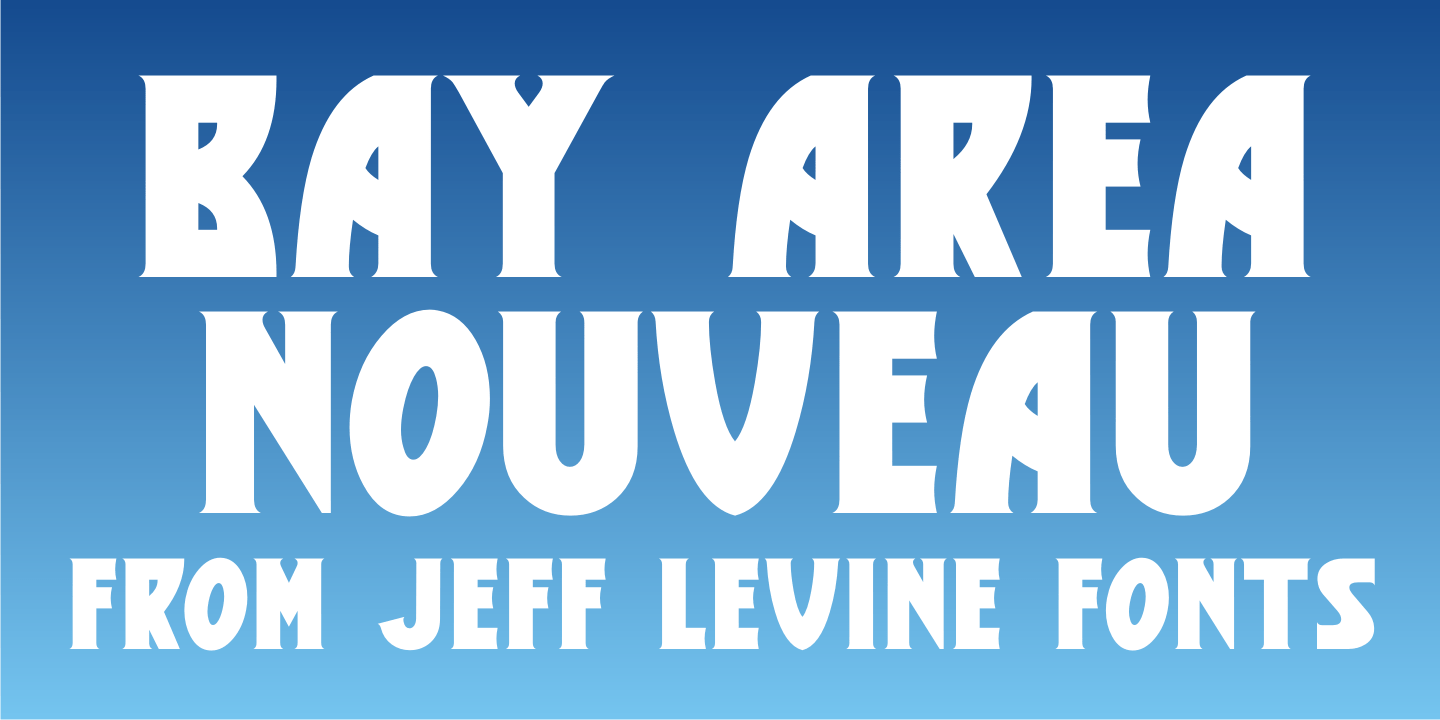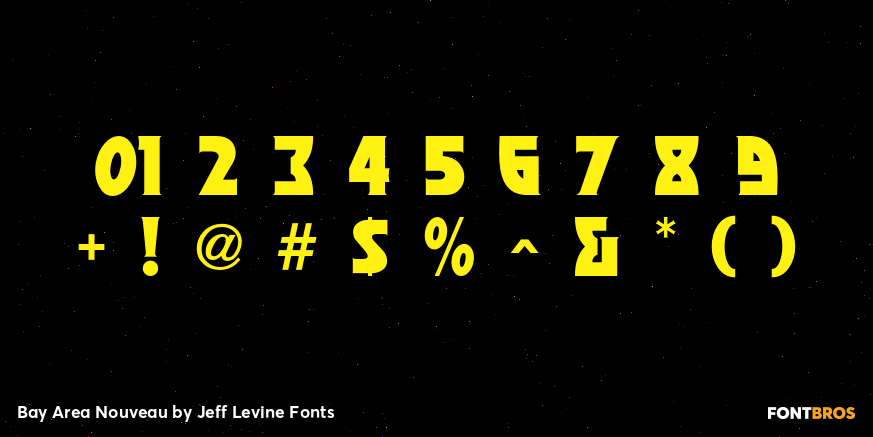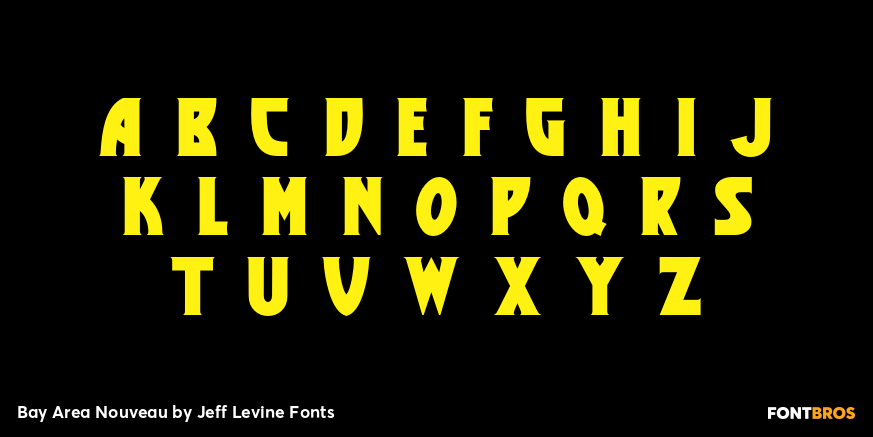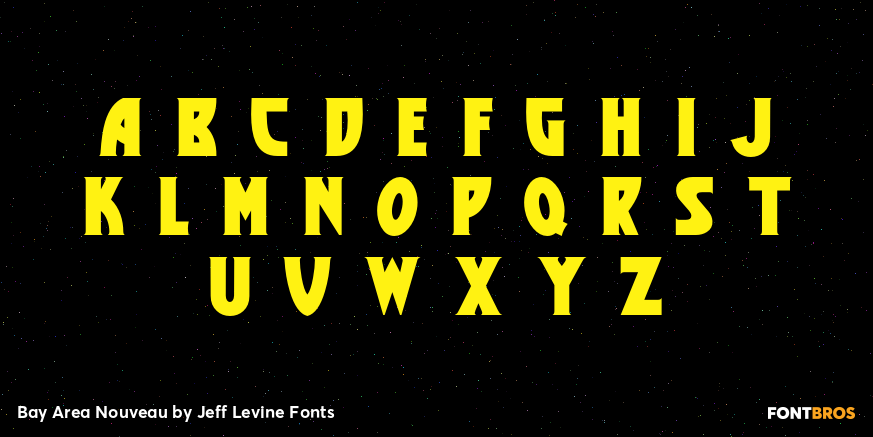
Bay Area Nouveau
Bay Area Nouveau JNL is an ultra bold, Art Nouveau headline font inspired by hand lettering on the cover of a piece of 1911sheet music entitled 'The Only Pal I Ever Had Came from 'Frisco Town”.